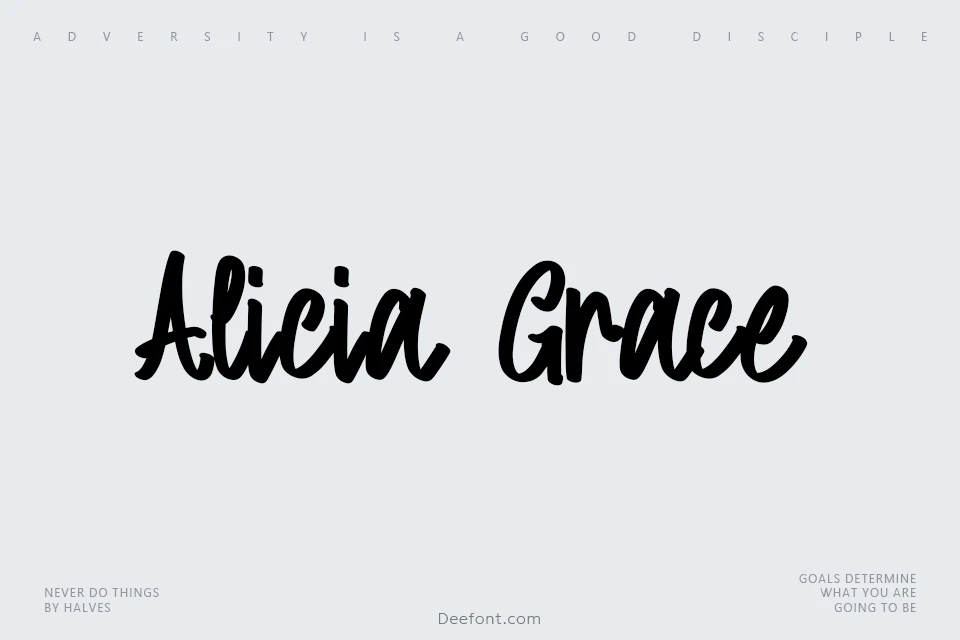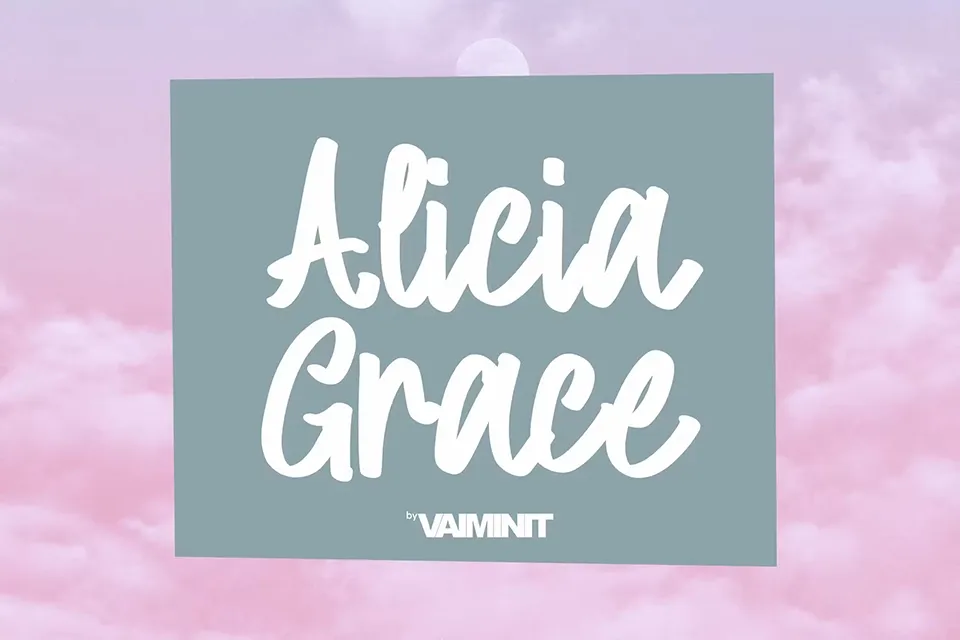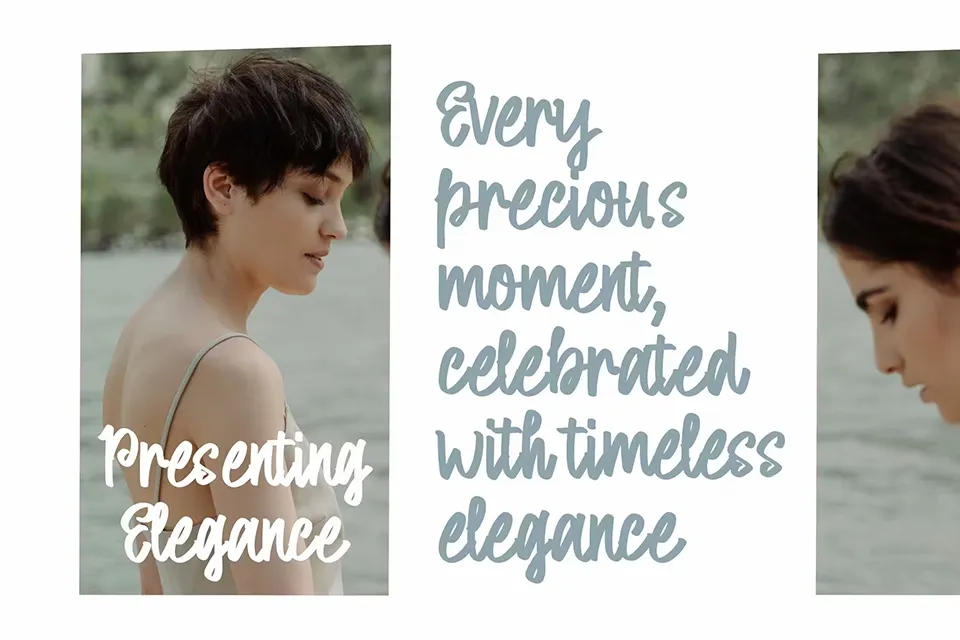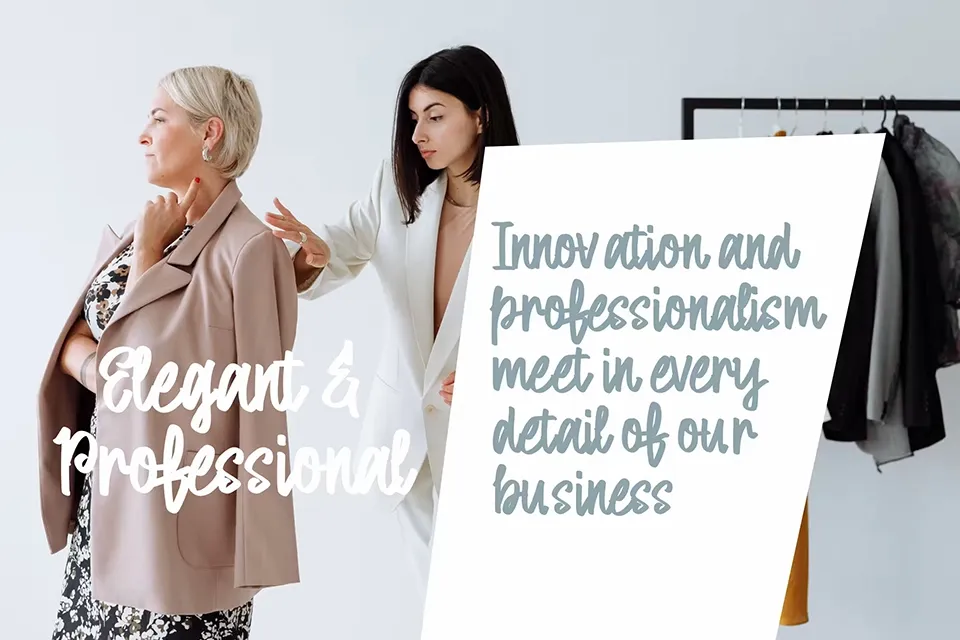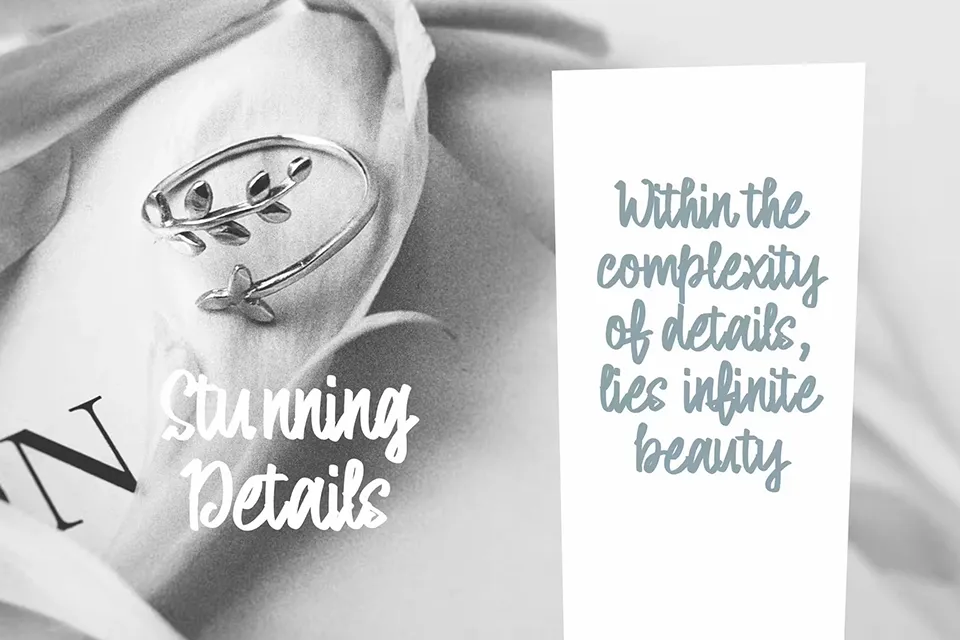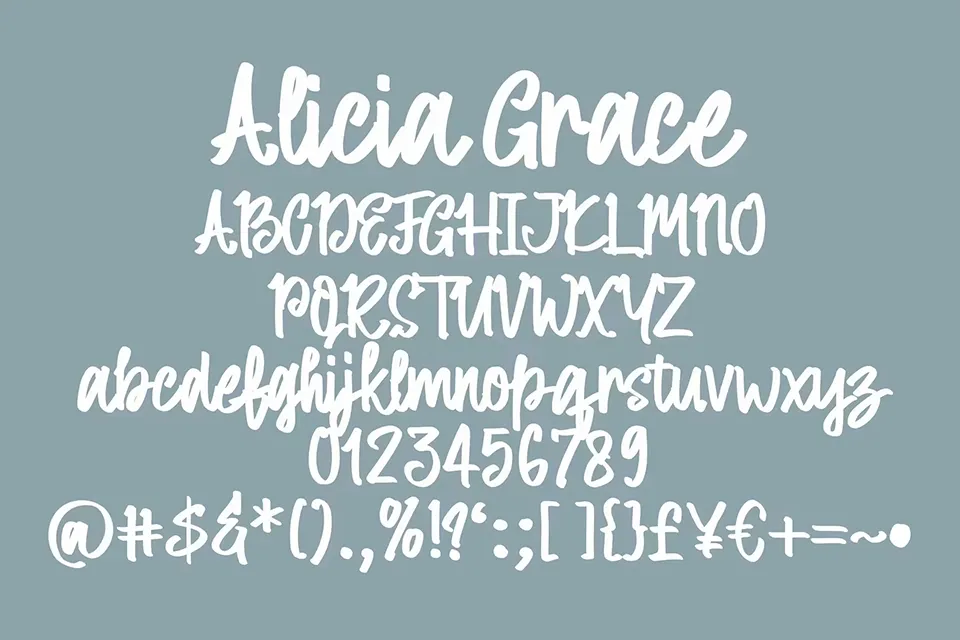
Alicia Grace Script Font
The Alicia Grace Script Font is a modern script typeface designed to bring an elegant, handwritten touch to your creative work. Featuring smooth, flowing curves and an inky sans companion, this font is ideal for attention-grabbing headlines, logos, invitations, and branding projects. Its versatile style makes it perfect for both formal and playful designs, allowing your typography to stand out with a personal, sophisticated flair.